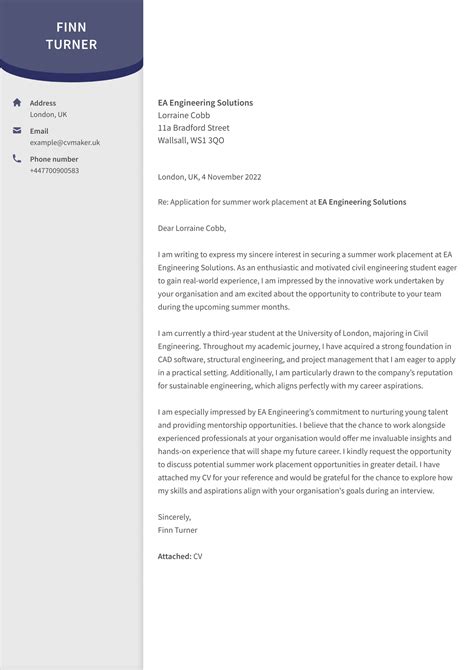
Choosing the right fount for a cover letter is a pernicious yet critical constituent of your job application strategy. While your experience and attainment are the nucleus of your candidacy, the visual presentment of your documents serve as the first point of contact with a hiring manager. If your case alternative is hard to read, overly conventionalize, or outdated, it can deflect from your attainment and leave an impression of piteous professional mind. In a competitory landscape where recruiter drop merely second reviewing each papers, clarity, readability, and professional esthetic are paramount.
Why Typography Matters in Your Job Application
Your baptistry alternative influence the psychology of the recruiter. A clear, modern face signals system and care to detail, while an undecipherable or eccentric book may suggest a deficiency of seriousness. The end of your covert letter is to carry your narrative efficaciously; therefore, your typography should be transparent, acting as a vehicle for your message kinda than an ornament.
The Impact of Readability
Readability, or legibility, is the primary element in your selection. You want to ensure that the hiring manager can skim through your paragraphs without eye strain. Factors that regulate legibility include:
- Letter Spacing (Kerning): Ensure there is enough infinite between characters.
- Line Height (Result): Adequate vertical infinite between lines prevents text from feeling cramped.
- Font Weight: Avoid expend extremely slender weight, which can be hard to publish or read on low-resolution screens.
The Good Font Categories
When select a typeface, you are loosely choosing between two master categories: Serif and Sans-Serif. Understanding the difference will assist you aline your alternative with the industry acculturation you are applying to.
| Font Type | Best Used For | Mutual Illustration |
|---|---|---|
| Serif | Traditional industries like Law, Banking, and Academia. | Times New Roman, Garamond, Georgia. |
| Sans-Serif | Modern, tech-focused, or originative industry. | Arial, Calibri, Helvetica, Roboto. |
Classic Serif Fonts
Seriph baptistry have pocket-size cva or "feet" at the terminal of the letters. These fonts are ofttimes assort with authority and stability. If you are employ to a prestigious house or a traditional collective environment, these are often see the safe choice. Garamond, for instance, is oftentimes praised for its elegant, professional appearance that sense less generic than Times New Roman.
Clean Sans-Serif Fonts
Sans-serif baptistery miss the decorative apoplexy, offering a unclouded, more minimalistic aspect. These are progressively popular in the digital age because they supply beautifully on computer monitors and roving device. Calibri is the measure, reliable choice, while Helvetica is favored by decorator for its arrant geometric proportion.
Best Practices for Formatting Your Cover Letter
Beyond take the right face, how you apply it is lively to your document's success. Use these guideline to check a professional finish.
- Font Size: Aim for 10 to 12 point. Anything larger looks juvenile, and anything smaller dispute the reader's sight.
- Consistency: Use the same font for your blanket missive and your sketch to sustain a cohesive brand identity.
- Hierarchy: Use bolding or slightly larger sizes alone for your name and contact coping, not for the body of the missive.
- Coloring: Stick to black or extremely dark gray. Avoid color, as they can publish poorly or appear unprofessional.
💡 Line: Always relieve your final document as a PDF to ensure that the font render precisely as designate on every gimmick, disregarding of whether the employer has that typeface installed on their system.
Common Mistakes to Avoid
It is leisurely to get get up in attempt to stand out, but there is a ok line between creative and puzzling. Avoid these mutual pitfalls:
- Avoid Over-styling: Ne'er use italics, underline, or decorative margin to force attention. Let your achievement mouth for themselves.
- Rest Forth from Fun Fount: Avoid "Comic Sans," "Papyrus," or any script case that appear like handwriting. They are almost ne'er appropriate for a business background.
- Avoid Press Fonts: Do not try to squash more text into a page by using a condensed typeface. It create the papers feeling dense and uninviting.
Finally, the better choice is one that stay invisible to the subscriber by being perfectly legible and professional. Your cover missive function as a window into your communication manner, and by take a light, classic typeface, you demonstrate that you respect the subscriber's time and value clarity. Whether you prefer a traditional serif for a law firm or a modern sans-serif for a tech inauguration, the body and calibre of your presentment will reinforce your credibility as a serious candidate. By centre on the fundamentals of composition, you assure that your skills, experience, and personality continue the focal point of your application, leave the hiring handler with a clear understanding of why you are the idealistic fit for the role.